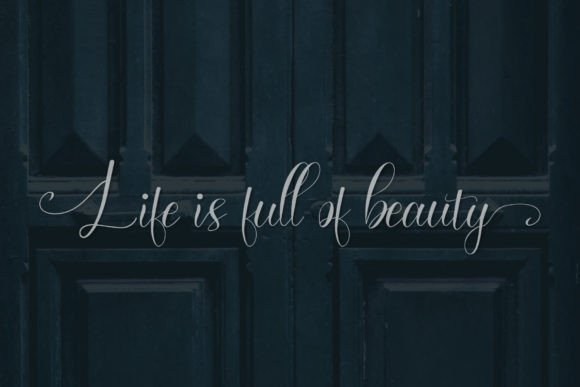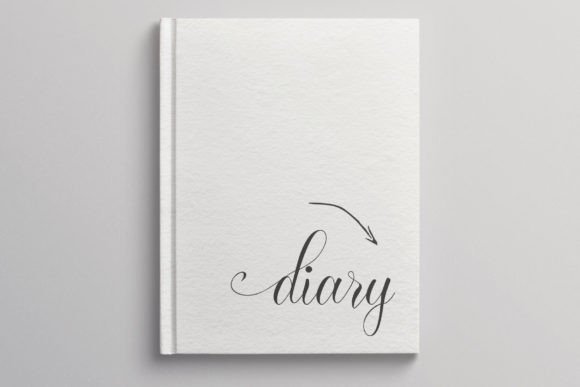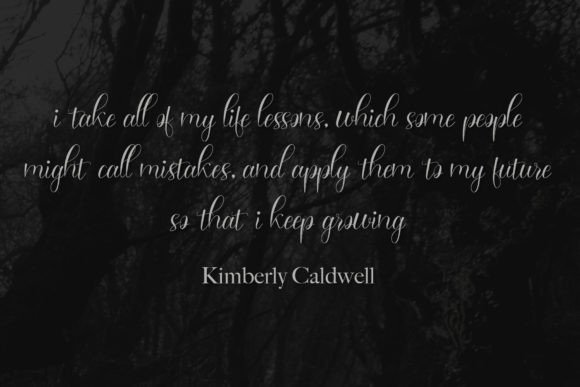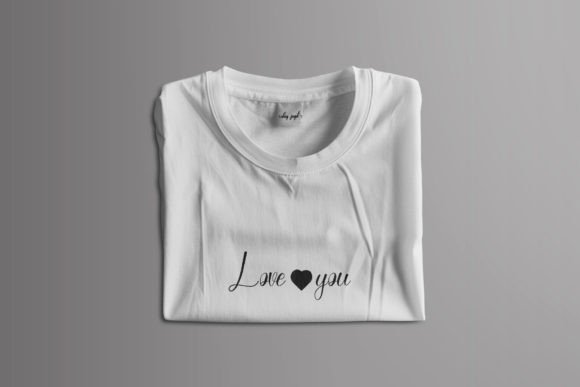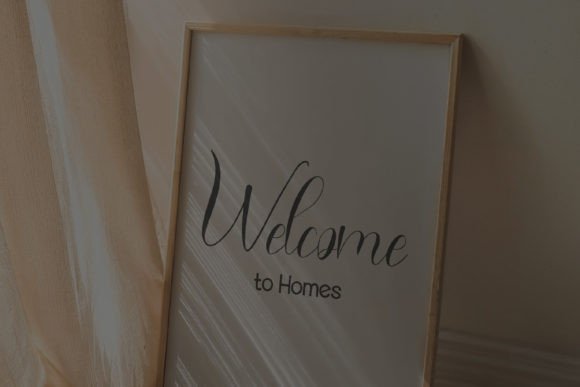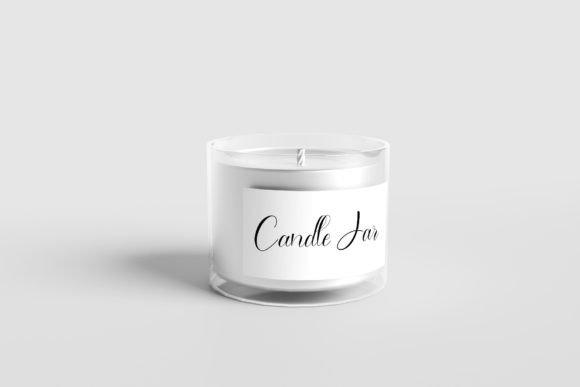
Introducing Diary Font: Elevate Your Designs with a Fresh and Elegant Touch
In the world of typography, fonts play a crucial role in conveying the tone and personality of a design. For designers and crafters looking to add a personal touch to their projects, the Diary Font is an excellent choice. This casual handwritten script font boasts unique curves and a distinctive feature that makes it perfect for a wide range of creative applications.
What is Diary Font?
Diary Font is a beautifully crafted handwritten script font that exudes a sense of freshness, elegance, and style. Its casual yet refined appearance makes it an ideal choice for designers seeking to create visually appealing and engaging designs. With its unique curves and feature font, Diary Font is sure to make your designs stand out from the crowd.
Key Features of Diary Font
- Unique Curves: Diary Font features distinctive curves that give it a personal and handwritten feel.
- Feature Font: The font’s feature font adds an extra layer of elegance and sophistication to your designs.
- Casual yet Refined: Diary Font strikes the perfect balance between casual and refined, making it suitable for a wide range of design applications.
- Fresh and Elegant: The font’s fresh and elegant appearance makes it perfect for designers seeking to create modern and stylish designs.
Diary Font is an incredibly versatile font that can be used for a wide range of creative projects, including:
- Logos: Create a lasting impression with a unique and memorable logo that showcases your brand’s personality.
- Cards: Add a personal touch to your greeting cards, invitations, and postcards with Diary Font’s elegant and refined appearance.
- Apparel: Create stylish and eye-catching apparel designs that are sure to turn heads.
- Printed Products: Elevate your printed products, such as brochures, flyers, and posters, with Diary Font’s fresh and elegant appearance.
- Invitations: Make your invitations stand out with Diary Font’s unique curves and feature font.
- Product Packaging: Create eye-catching product packaging that reflects your brand’s personality and style.
- Letterhead: Add a touch of elegance and sophistication to your letterhead with Diary Font.
- Magazine and Book: Use Diary Font to create visually appealing and engaging magazine and book designs.
Why Choose Diary Font?
With so many fonts available, why choose Diary Font? Here are just a few reasons why designers and crafters love Diary Font:
- Unique and Distinctive: Diary Font’s unique curves and feature font make it a standout choice for designers seeking to create memorable and engaging designs.
- Versatile: Diary Font is incredibly versatile and can be used for a wide range of design applications.
- Elegant and Refined: The font’s elegant and refined appearance makes it perfect for designers seeking to create sophisticated and stylish designs.
- Easy to Read: Diary Font is easy to read, making it perfect for body text and headlines.
In conclusion, Diary Font is an excellent choice for designers and crafters seeking to add a personal touch to their designs. With its unique curves, feature font, and elegant appearance, Diary Font is perfect for a wide range of creative projects. Whether you’re creating logos, cards, apparel, or printed products, Diary Font is sure to elevate your designs and make them stand out from the crowd.